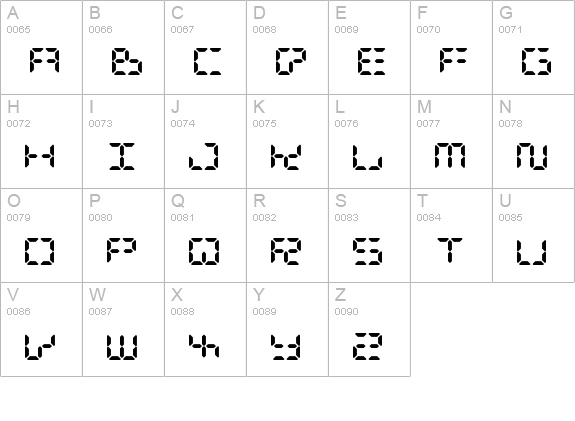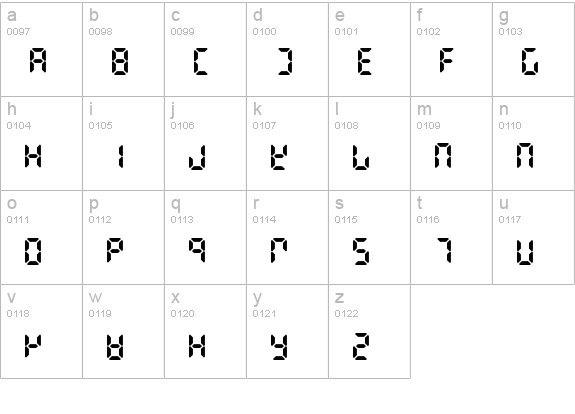
Digital Dismay font is a modern and edgy typeface that combines sleek lines with a slightly distressed look, perfect for adding a touch of futuristic style to your designs. Its sharp angles and bold presence make it ideal for headlines, posters, and branding projects that demand attention. The unique character shapes and geometric elements give Digital Dismay a distinctive and memorable appearance. And the best part? Digital Dismay font is available for free download at FontsMarket.com. Whether you're a designer looking to experiment with a new font or a business owner searching for a fresh look for your marketing materials, Digital Dismay offers a versatile and eye-catching option that won't break the bank. Download it today and elevate your designs with this modern and dynamic typeface.